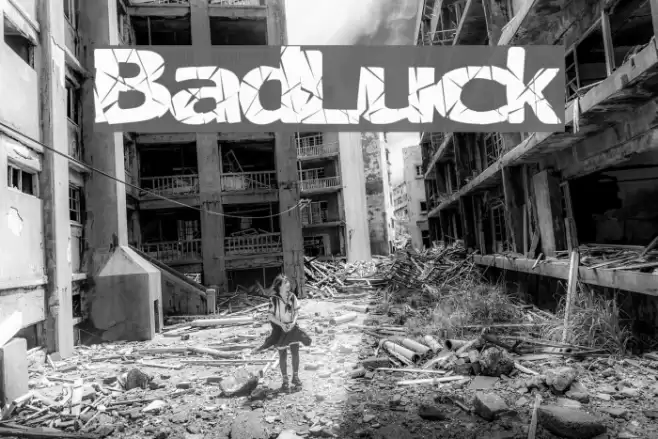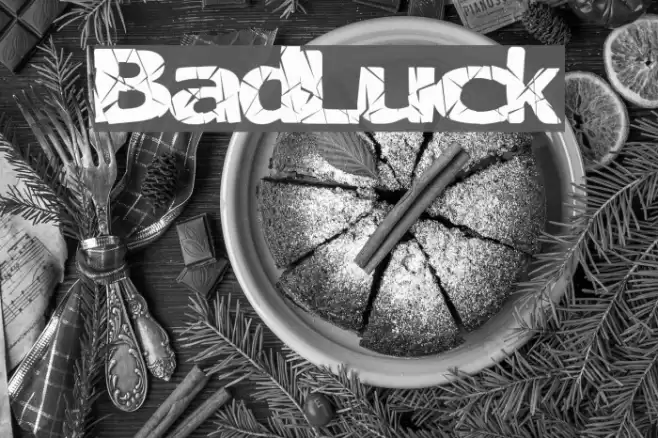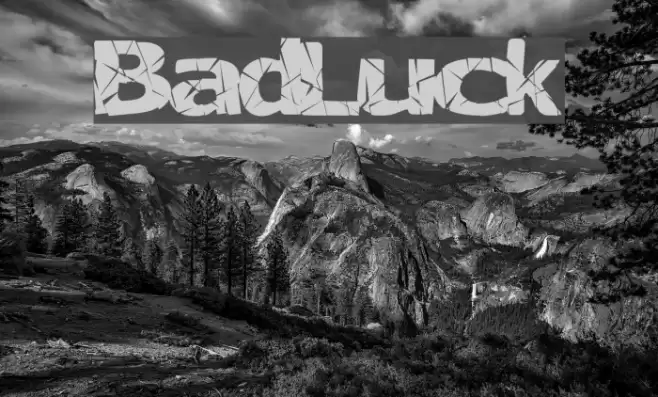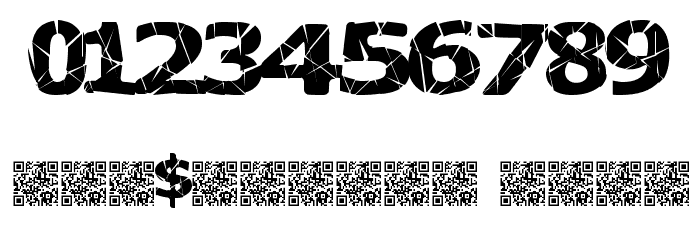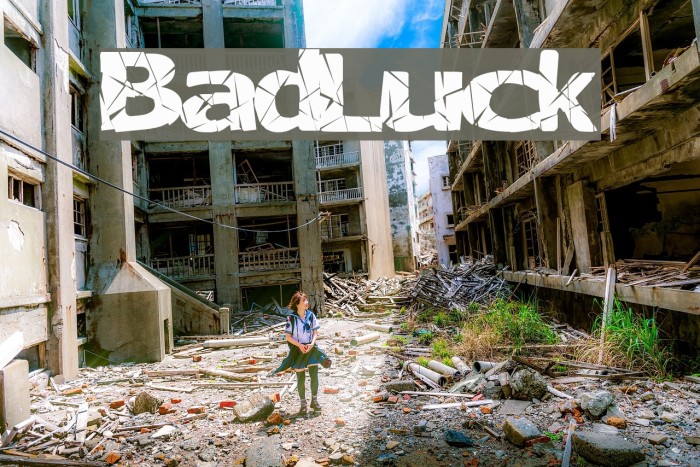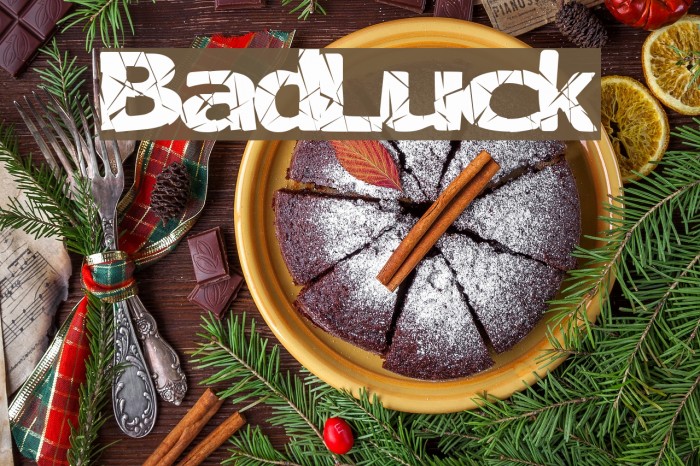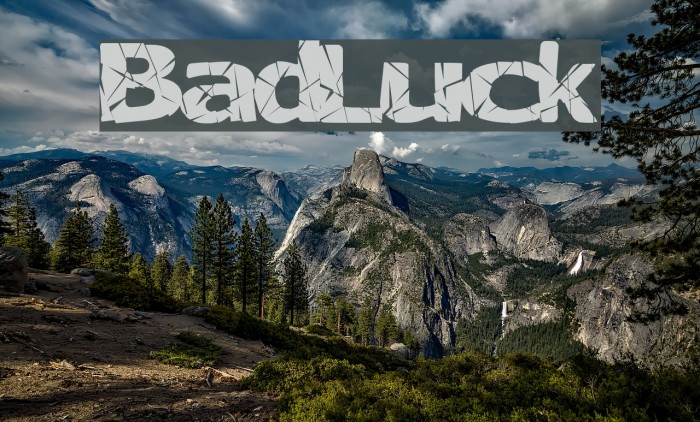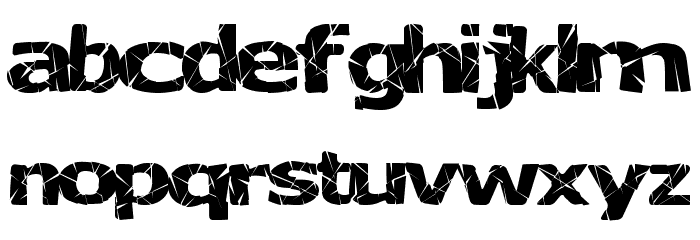
BadLuck Font
BadLuck Description
This font features a unique, shattered glass effect that gives each character a fragmented and edgy appearance. The bold, angular shapes are filled with irregular, sharp lines that mimic the look of broken shards. This design creates a sense of chaos and movement, making it highly distinctive and eye-catching. The uppercase and lowercase letters maintain a consistent style, with each character appearing as if it has been cracked or splintered. The numbers and special characters follow the same design principle, ensuring uniformity across the entire typeface. This font is particularly suitable for projects that require a dramatic and unconventional aesthetic.
A bold, shattered glass effect font with fragmented, edgy characters from Distorted Eroded fonts.
- Proposed Projects: Ideal for album covers, movie posters, edgy branding, and any design needing a dramatic impact.
- Overall Style: Modern, Edgy